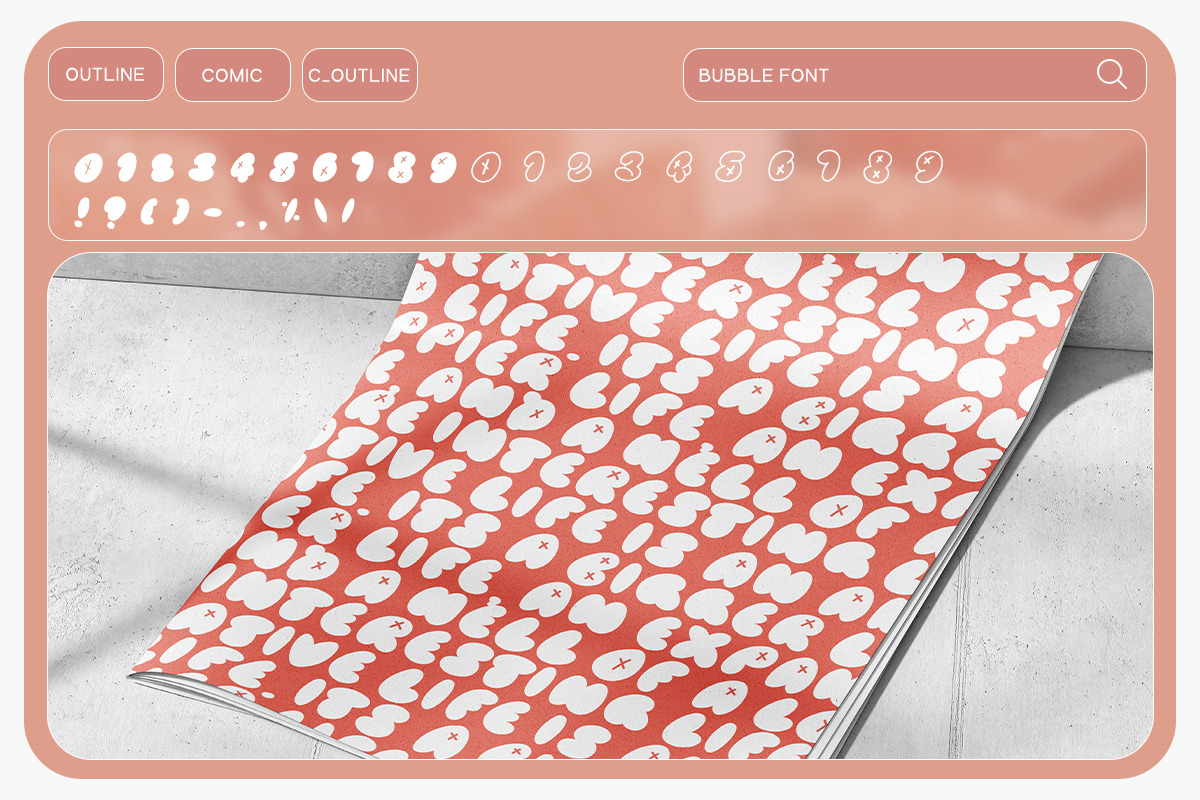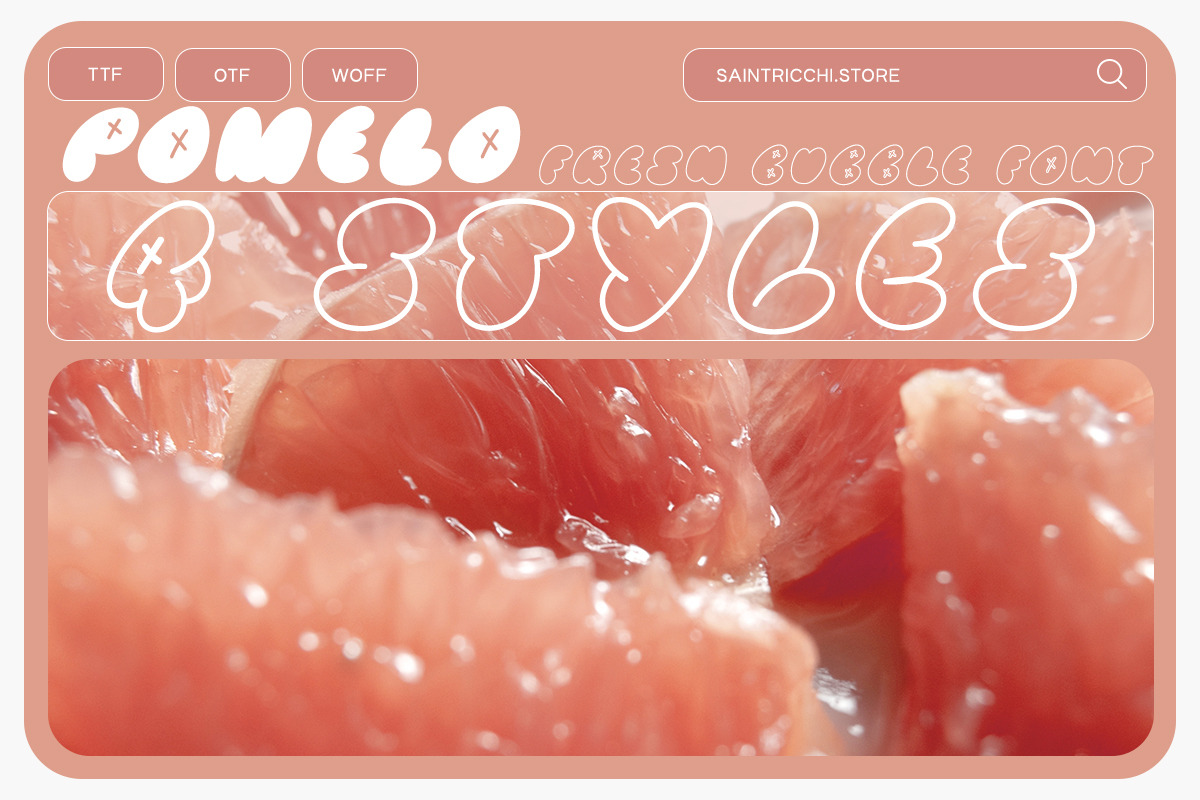
Pomelo - Y2K Font
Introducing Pomelo, the fresh and trendy bubble font that's taking the design world by storm. With its playful curves and whimsical shapes, Pomelo is the perfect choice for any project that needs a touch of fun and nostalgia.
This y2k-inspired font features both Latin and Cyrillic characters, making it a versatile choice for designers working with a wide range of languages. Whether you're creating a website, designing a poster, or crafting social media graphics, Pomelo is sure to bring a pop of personality to your work.
Pomelo is a font that embodies the spirit of the early 2000s while still feeling fresh and modern. With its bubbly curves and playful character, it's sure to make any design project stand out from the crowd.